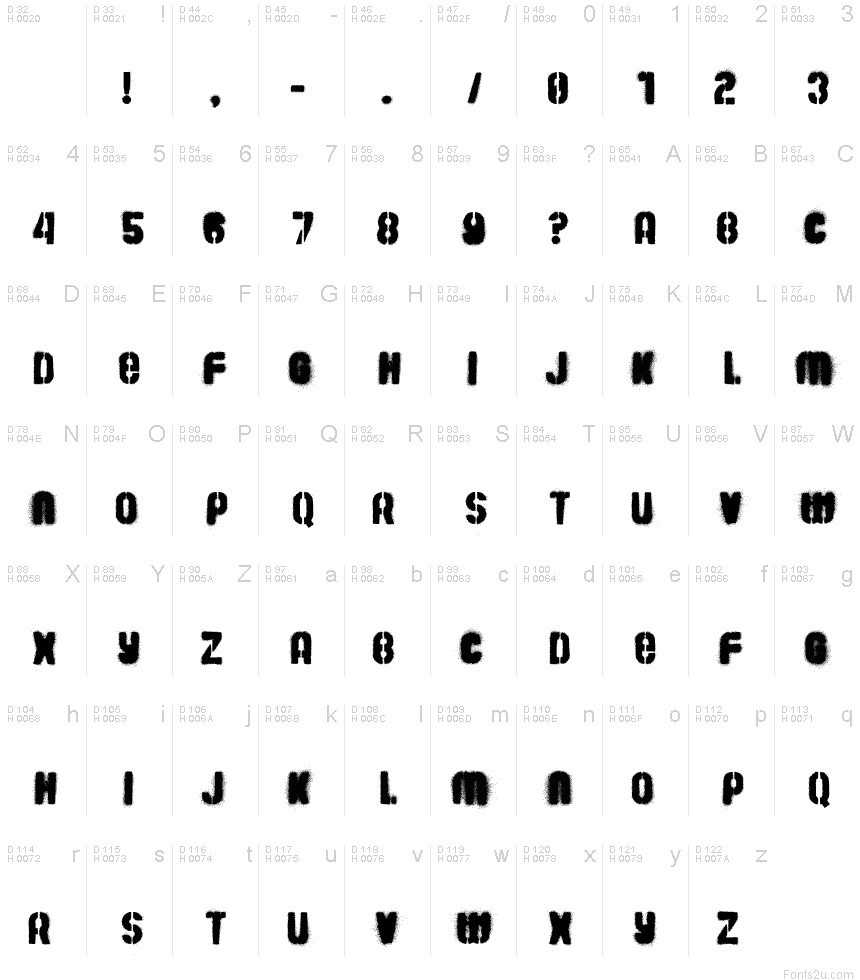
Barrio 30
Barrio 30 font by StereoType is a free distorted display font that looks like thick stencil letters blasted with a cloud of spray paint. The heavy, rounded shapes stay legible, while the fuzzy overspray and rough edges give each word a raw, alley-wall energy. It feels noisy, gritty, and immediate-like it was made for posters you notice from half a block away.
Using Barrio 30, your titles hit with a bold, urban punch that suits gig posters, streetwear graphics, zines, extreme-sports branding, skate or graffiti-themed flyers, and underground event promos. This free font works best at big sizes where the grainy texture can breathe; pair it with a clean geometric sans serif for body copy to let the distressed letters stay the loudest voice on the page.